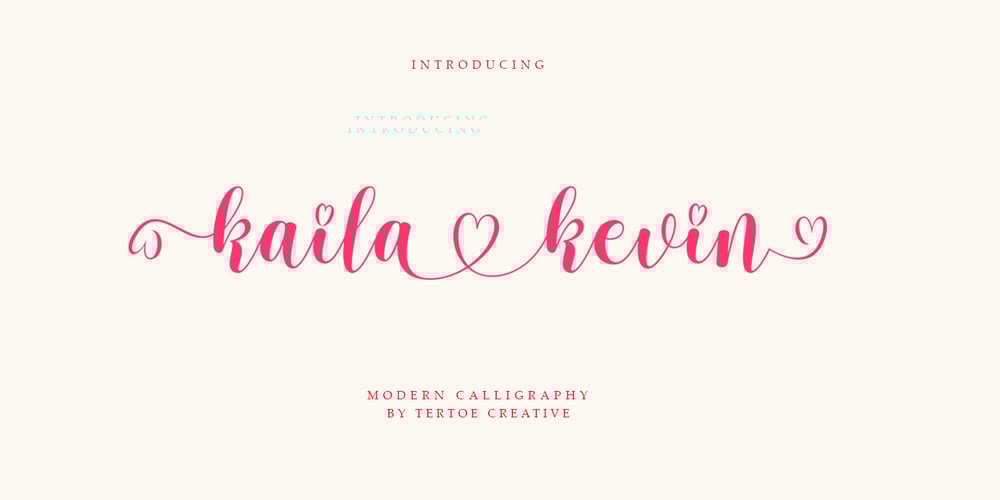
Kaila Kevin Font Family was designed by khaidir and published by Tertoecreative. Kaila Kevin contains 1 styles and family package options. Kaila Kevin font is fully adapted to modern needs. It performs well on both screen and in print, appears natural in body text, and its design avoids looking archaic. The typeface offers weights from Regular to Extrabold, with a fully realized gradation of optical sizes. Text styles are suited for small sizes, Subhead styles work best for medium sizes, and Display styles are ideal for large and extra-large applications.